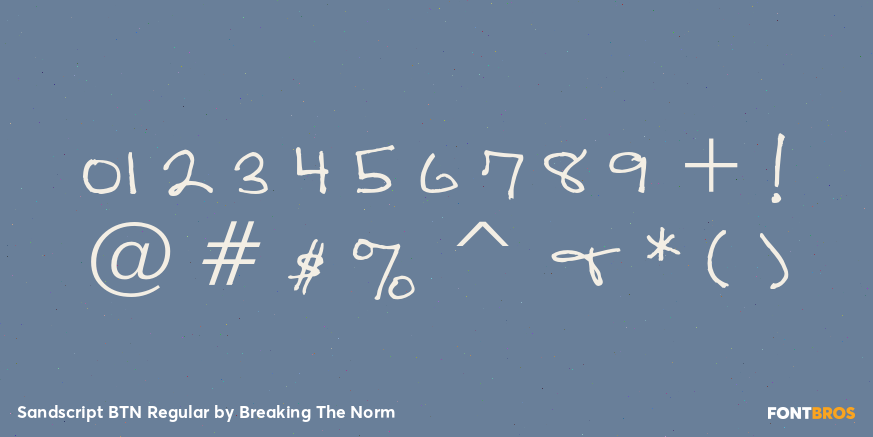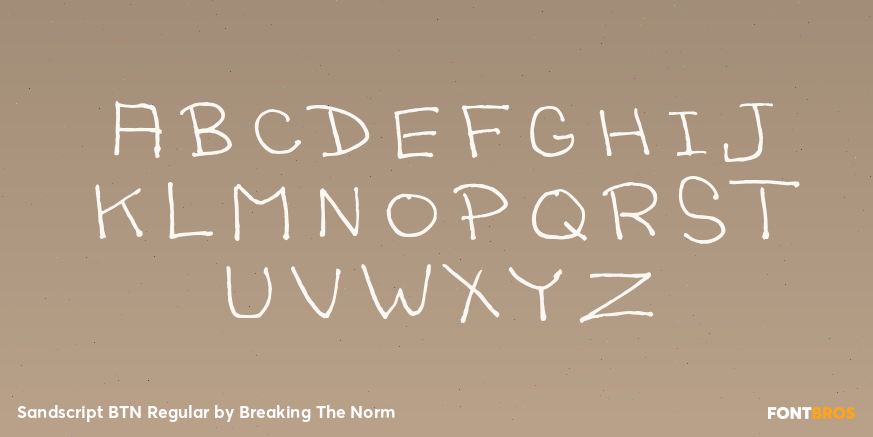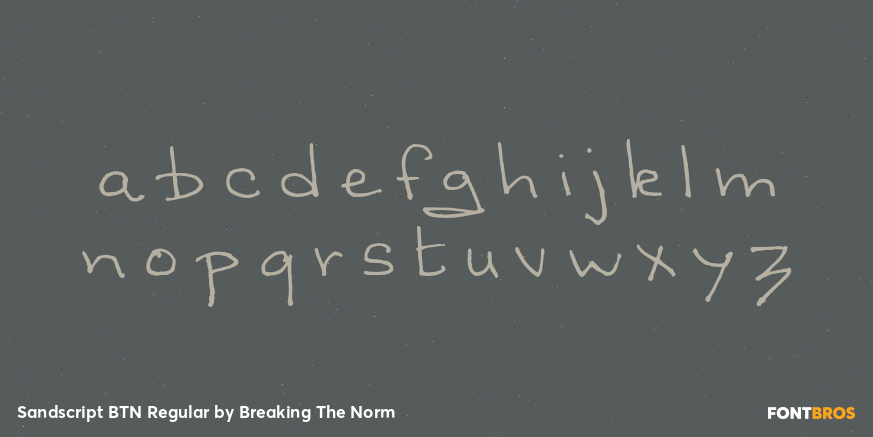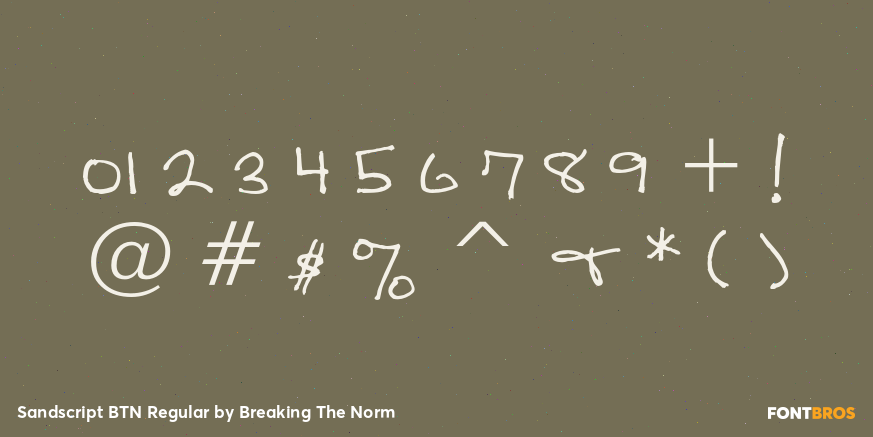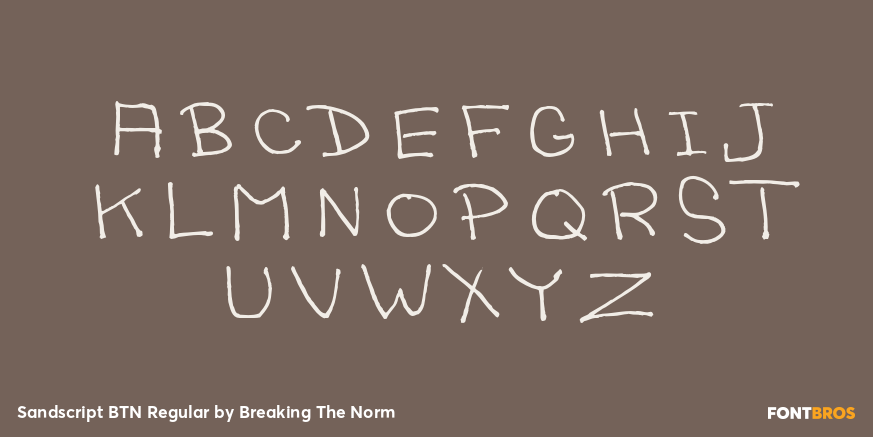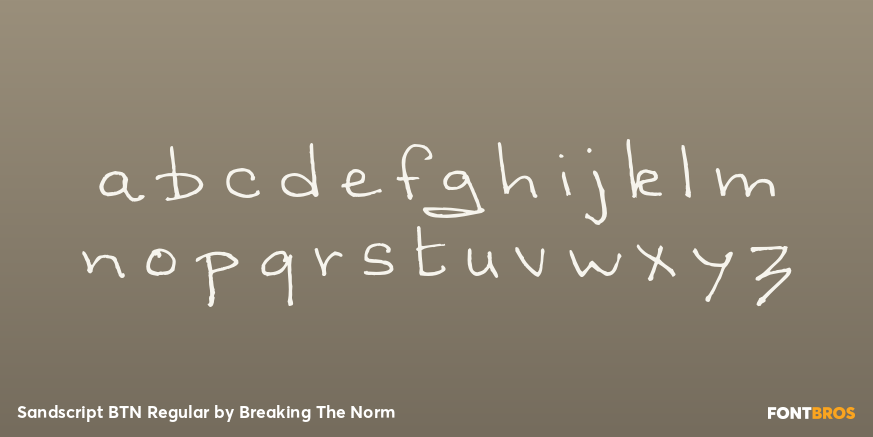
Sandscript BTN Regular
Sandscript BTN is a casual handwritten font with a personal, everyday feel. Its simple letterforms and informal rhythm give it the look of natural human handwriting rather than a polished script style, making it well suited for notes, journaling, scrapbook use, casual labeling, blog graphics, classroom materials, and designs that need a direct, approachable handwritten voice. Sandscript BTN feels relaxed, readable, and unpretentious, offering a straightforward personal touch for informal display and short text use.